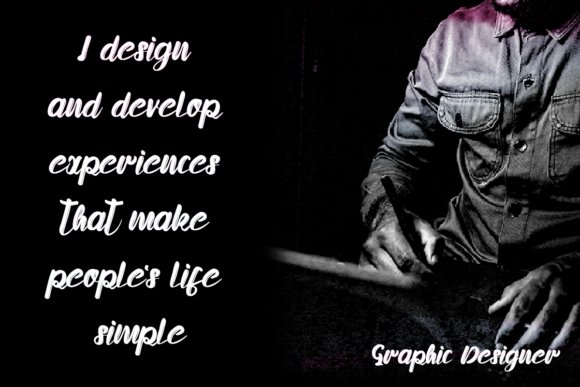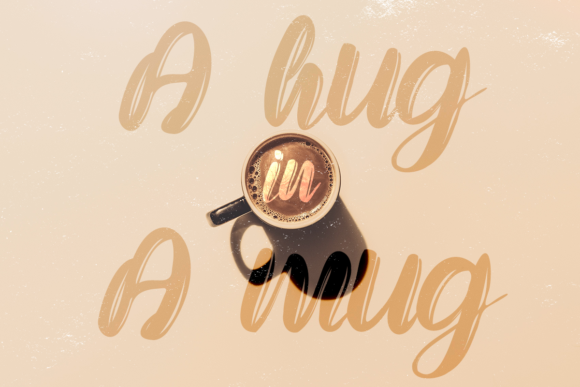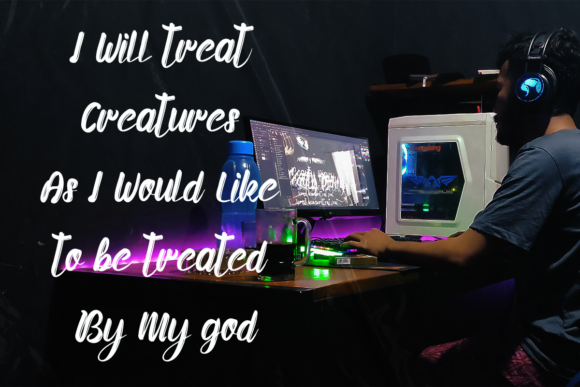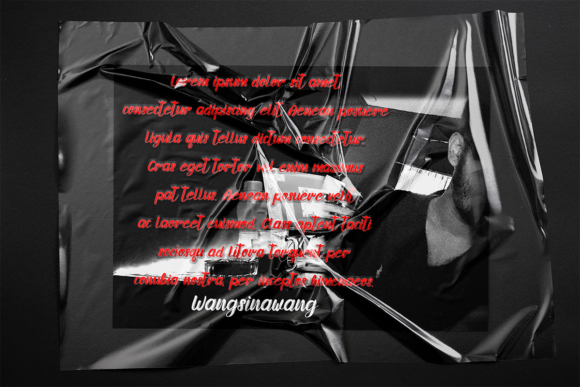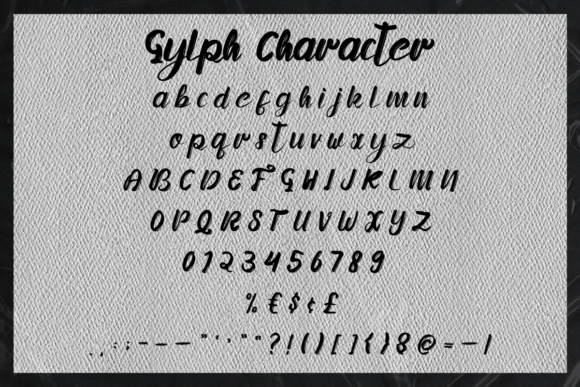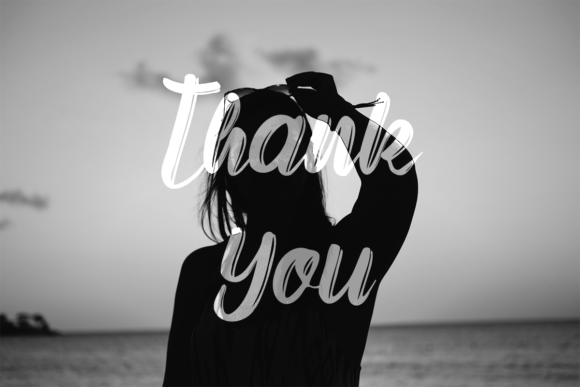
Introduction to Beauty Diary Font
As a designer, there’s nothing quite like that ‘aha’ moment when you stumble upon the perfect font to elevate your creative project. For me, it was the day I discovered the Beauty Diary Font. Its playful, handwritten style immediately caught my eye, and I couldn’t wait to see how it would transform my designs.
With its joyful touch, the Beauty Diary Font is a game-changer for designers looking to add a personal and whimsical feel to their work. Whether you’re working on a branding project, creating social media graphics, or designing a wedding invitation, this beautiful script font is sure to make your designs stand out. And the best part? It’s a high-quality, free download that can be used with a transparent background, making it a valuable addition to any designer’s toolkit.
Key Features of Beauty Diary Font
- High-quality design resource for creative projects, ideal for beauty and lifestyle themes.
- Includes a range of styles and glyphs, making it a versatile design resource for various creative projects.
- Perfect for designers looking for a unique and stylish font to elevate their creative project, be it a blog, magazine, or social media campaign.
Honest Review: Beauty Diary Font
I recently stumbled upon the Beauty Diary Font while working on a creative project that required a touch of elegance and sophistication. I was excited to give it a try and see if it lived up to its promise.
One of the first things I noticed was the high quality of the font. The lines are smooth, the curves are precise, and the overall design is beautiful. ✨ I particularly appreciated the fact that it’s available as a free download, making it an excellent design resource for anyone looking to add a touch of class to their work.
The font comes in a variety of weights, from light to bold, which gives you plenty of flexibility when it comes to choosing the right one for your project. Additionally, it has a transparent background, which makes it easy to use on any background image or color scheme.
- Available in various weights
- Not ideal for use as a display font (too elegant and might get lost)
- Some users may find the font too ornate
Overall, I’m very impressed with the Beauty Diary Font. It’s a beautiful and versatile design resource that can add a touch of sophistication to any project. I would highly recommend it to anyone looking for a high-quality font for their creative project.
How to Use Beauty Diary Font
The Beauty Diary Font is a high-quality, free design resource ideal for creative projects. Its transparent background and elegant design make it perfect for various applications.
Tips for Getting the Most Out of Beauty Diary Font
Combine the Beauty Diary Font with other design elements to create visually appealing graphics. Experiment with different font sizes, colors, and arrangements to achieve the desired effect.
The Beauty Diary Font is perfect for:
– Social media graphics and blog posts
– Flyers, brochures, and business cards
– Presentations, reports, and documents
– Logos, typography, and branding materials